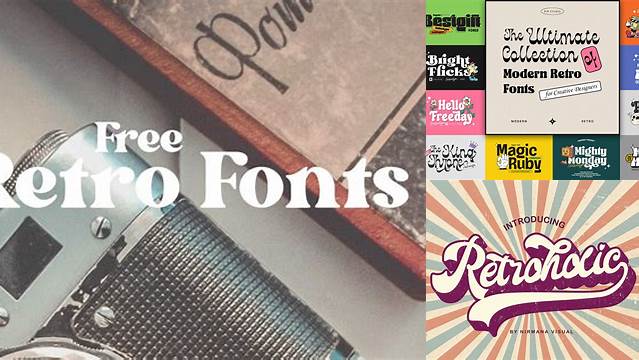
Download Free Retro Fonts: Your Ultimate Guide
Hey everyone! If you're anything like me, you're probably obsessed with the vibes of the past. And what better way to bring back those nostalgic feels than with some awesome free retro fonts? Seriously, they're a game-changer! Whether you're a graphic designer, a blogger, or just someone who loves to create, these fonts can totally elevate your projects. In this ultimate guide, we're diving deep into the world of free retro fonts, helping you find the perfect ones for your needs, and showing you how to use them like a pro. So, grab your favorite beverage, get comfy, and let's get started! We’ll explore everything from the best websites to download them to the different styles you can choose from. Prepare to inject some serious vintage flair into your designs!
What Exactly ARE Retro Fonts, Anyway?
Alright, before we get into the nitty-gritty, let's talk about what retro fonts actually are. Basically, they're fonts that take inspiration from the styles of the past. Think of the groovy 70s, the sleek 80s, and the classic designs of the mid-century era. These fonts aim to capture the essence of those times, bringing a sense of nostalgia and personality to your work. They often feature unique characteristics like bold serifs, rounded letterforms, or even the funky, slightly imperfect look of hand-drawn lettering. The beauty of retro fonts lies in their versatility. You can use them for a huge variety of projects, from posters and logos to websites and social media graphics. They can evoke a sense of history, fun, or even sophistication, depending on the specific style and how you use them. So, basically, if you want to add some vintage charm to your designs, retro fonts are your go-to.
Diving Deep: Exploring Different Retro Font Styles
Now, let's get to the fun part: exploring the diverse world of retro font styles. There's a whole spectrum out there, each with its own unique personality. One popular style is the 70s disco font. These fonts usually have bold, rounded shapes and sometimes include groovy swirls and flares, reminiscent of the iconic disco era. They’re perfect for projects that want to scream fun and energy. Then, we have the 80s neon fonts, which often feature bold, angular designs with a futuristic feel. These fonts are excellent for creating a sense of excitement and modernity. For a more classic look, you might consider a vintage serif font. These fonts draw inspiration from older design periods, such as the art deco and mid-century modern eras. They offer a sense of elegance and sophistication, perfect for projects that need a touch of timelessness. And of course, let's not forget the hand-drawn retro fonts. These fonts give a more organic, authentic feel. They're usually slightly imperfect, which gives them a friendly and approachable look. No matter what vibe you're going for, there is a free retro font download that will nail it!